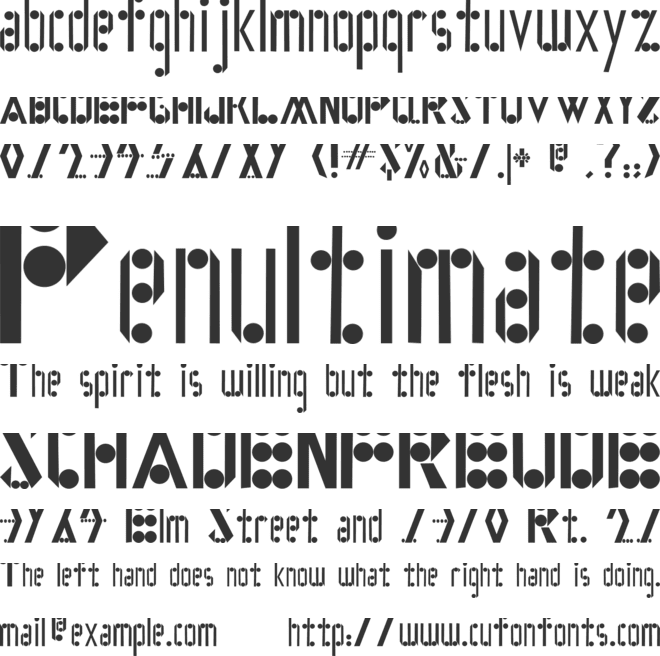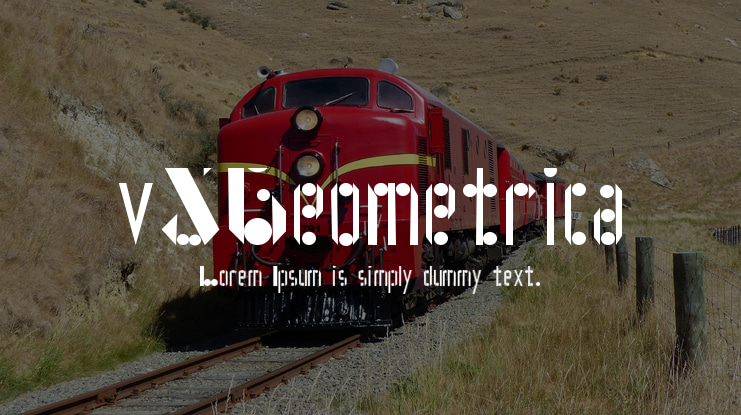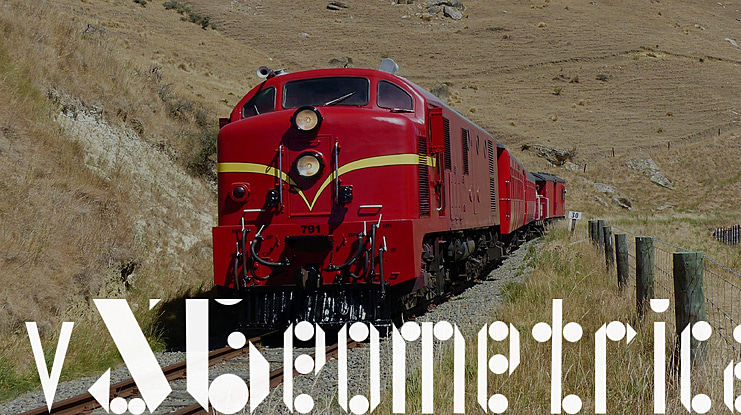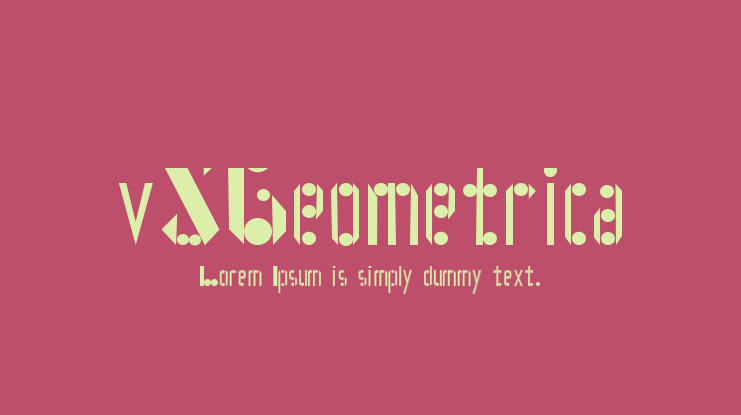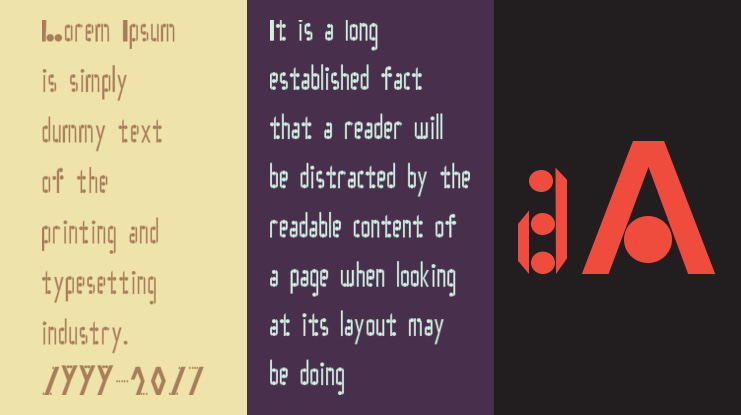
A font designed on one basic premise; all horizontal strokes are replaced with dots. This results in an original modern looking, stencil like font, complete with its own unique numerals. Style over legibility. Sometimes the letters are hidden in plain sight, and squinting will make them more visible, until you get used to the new style of characters.